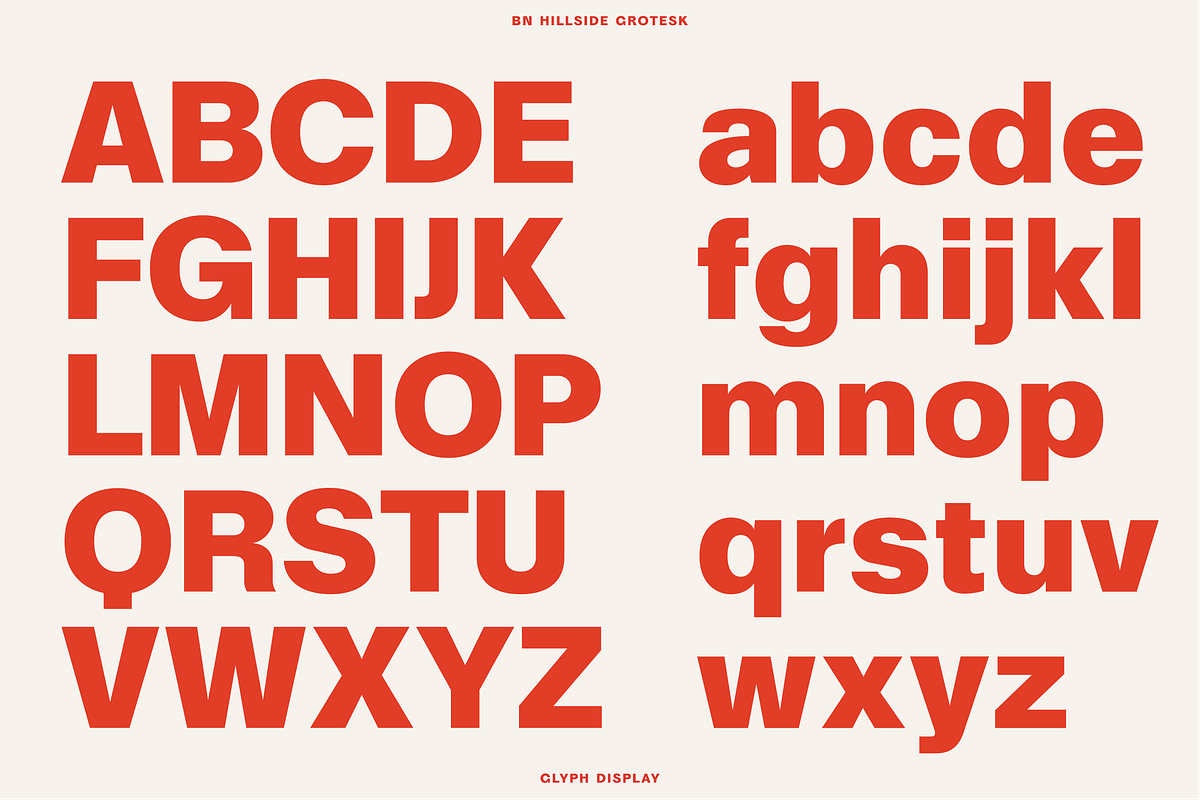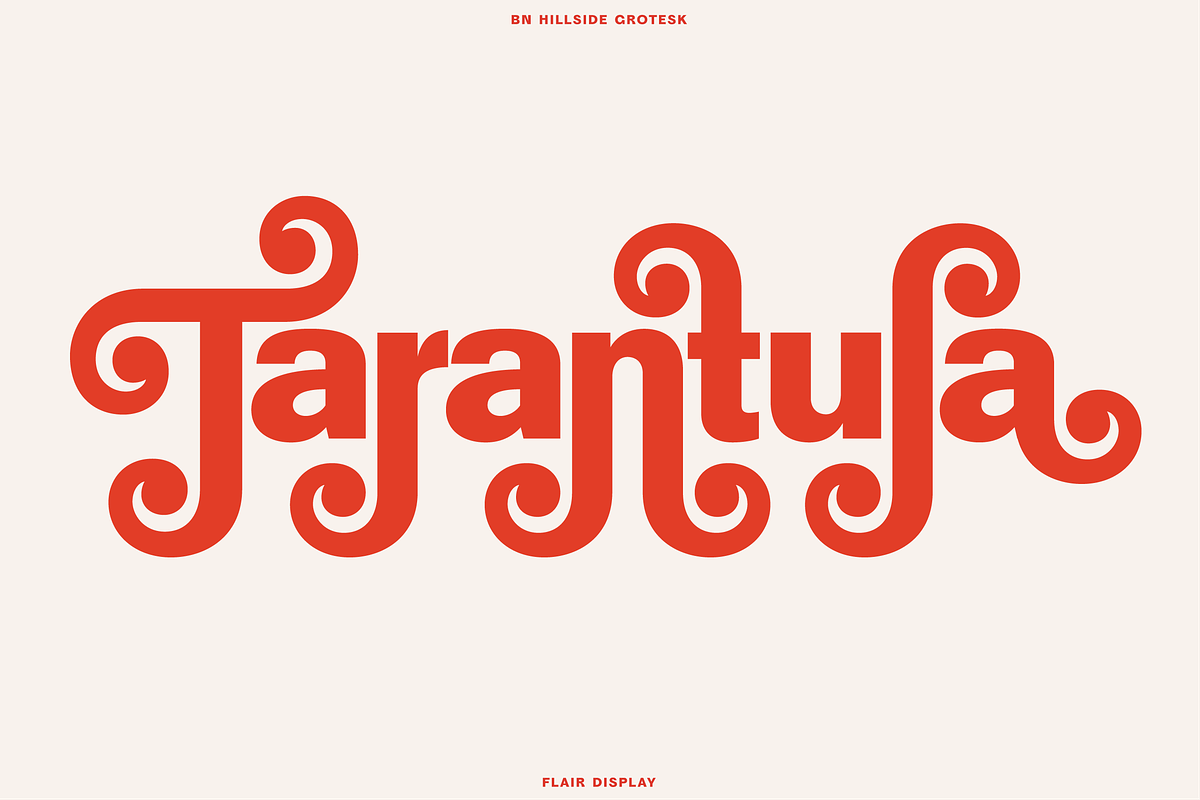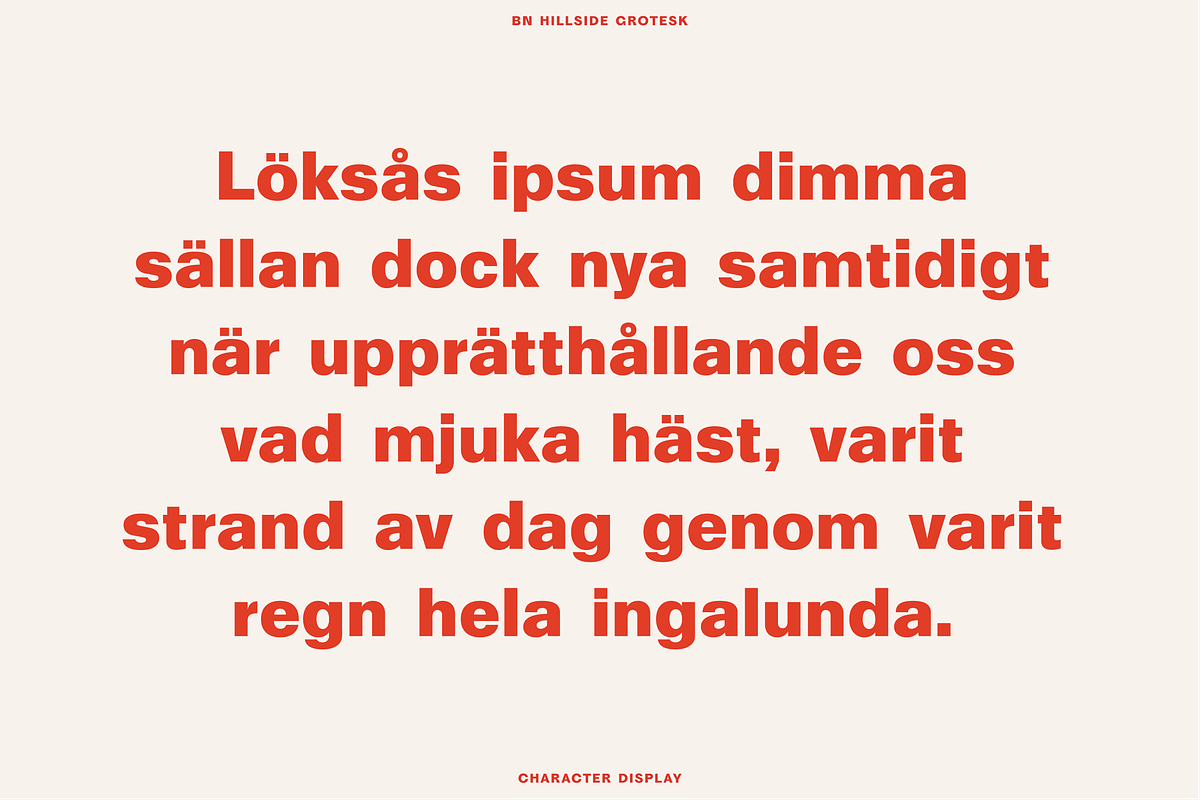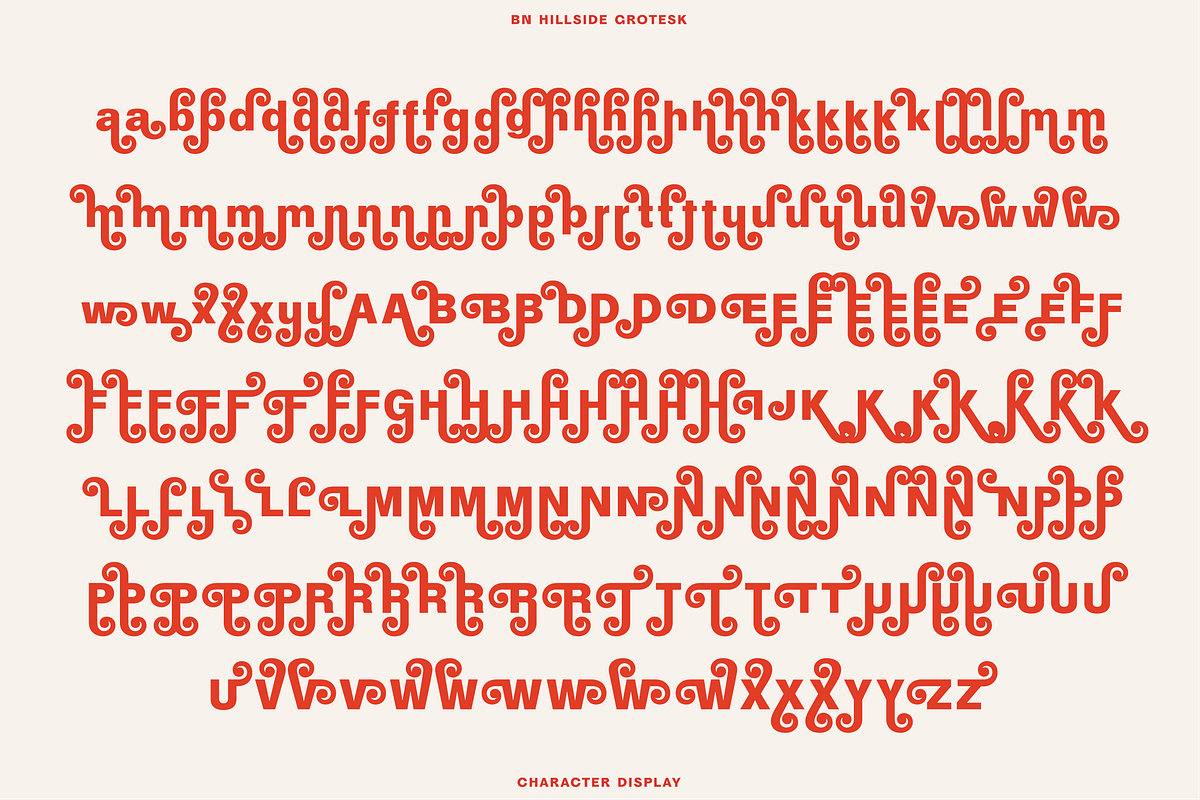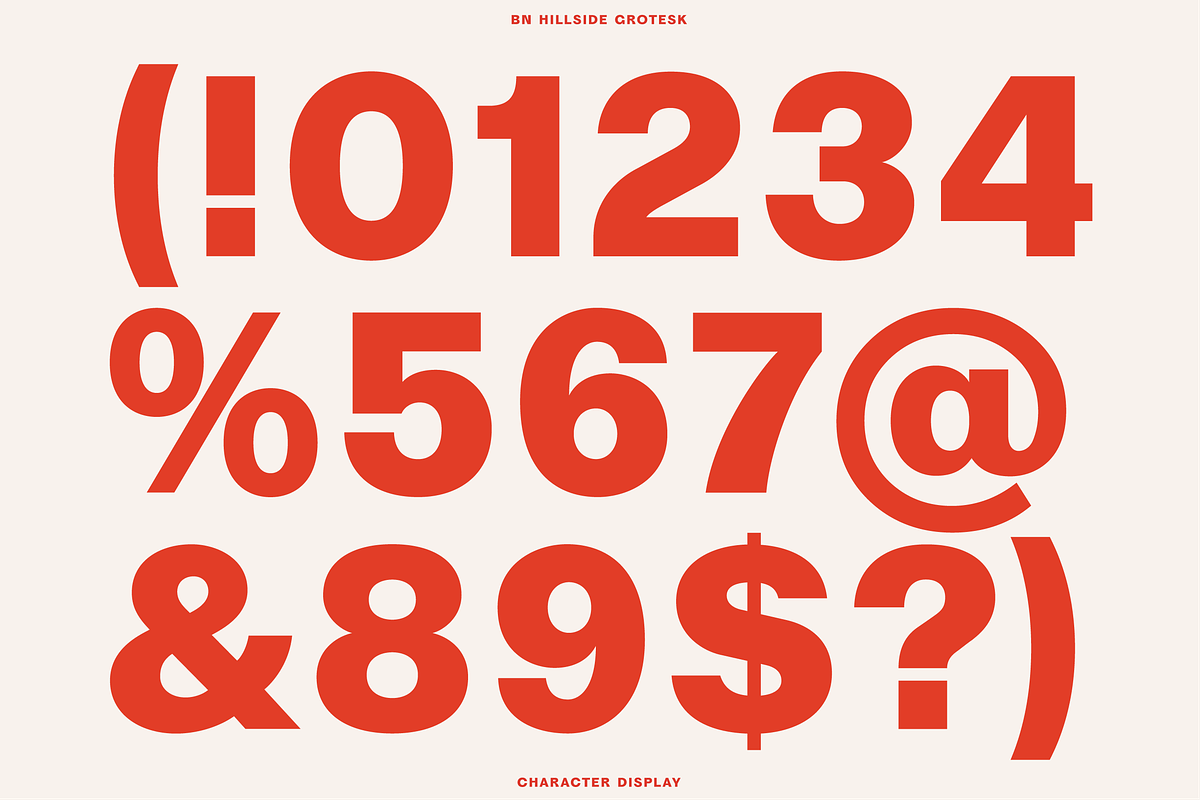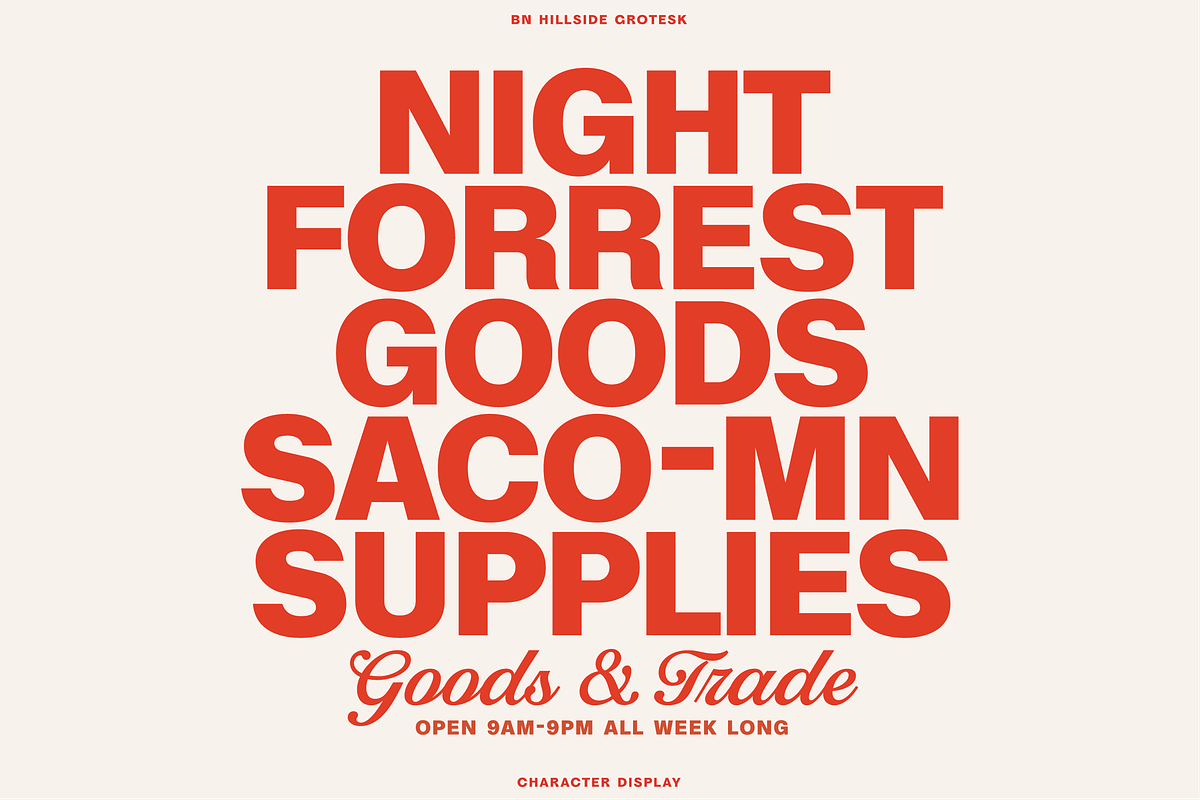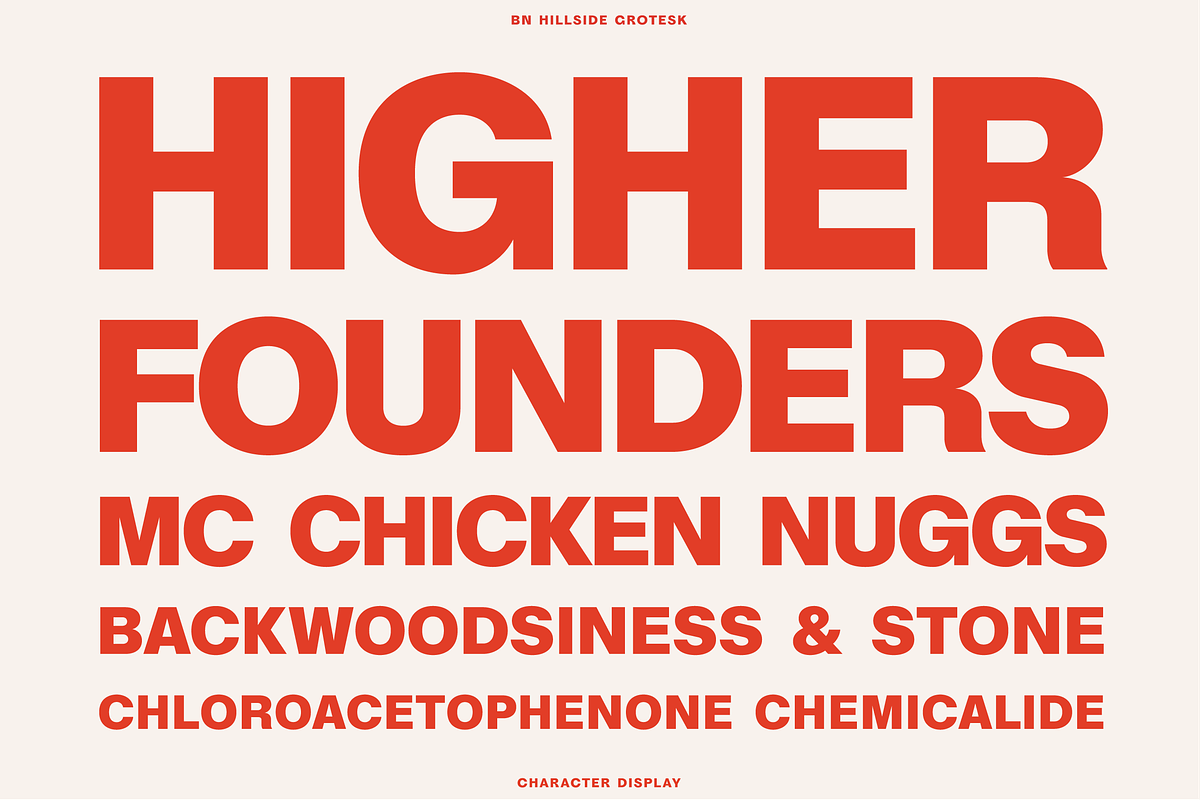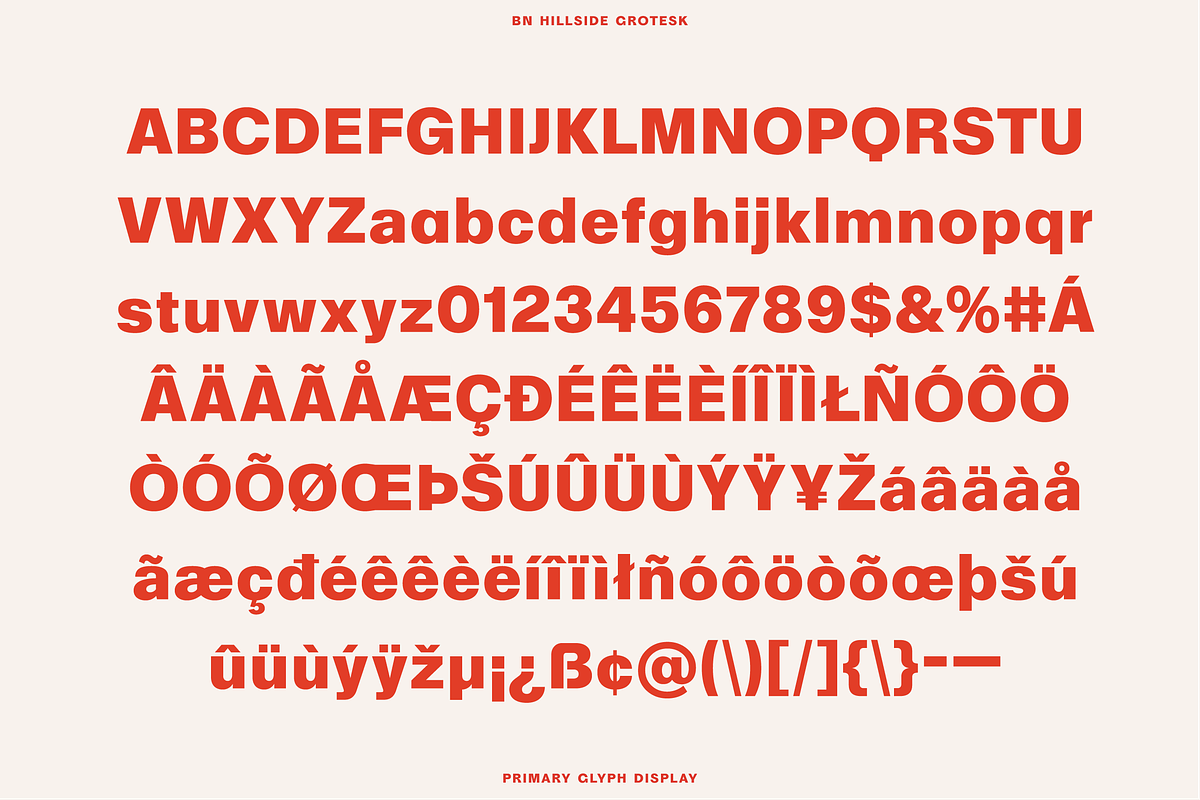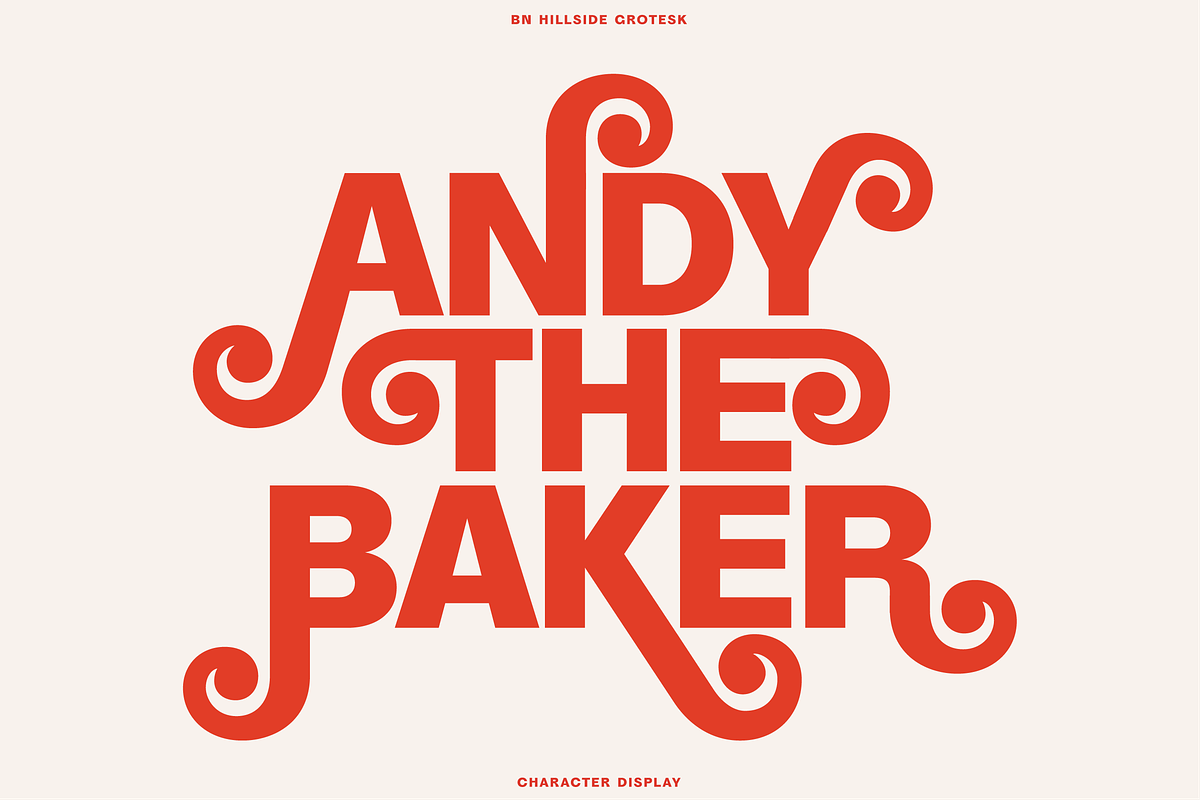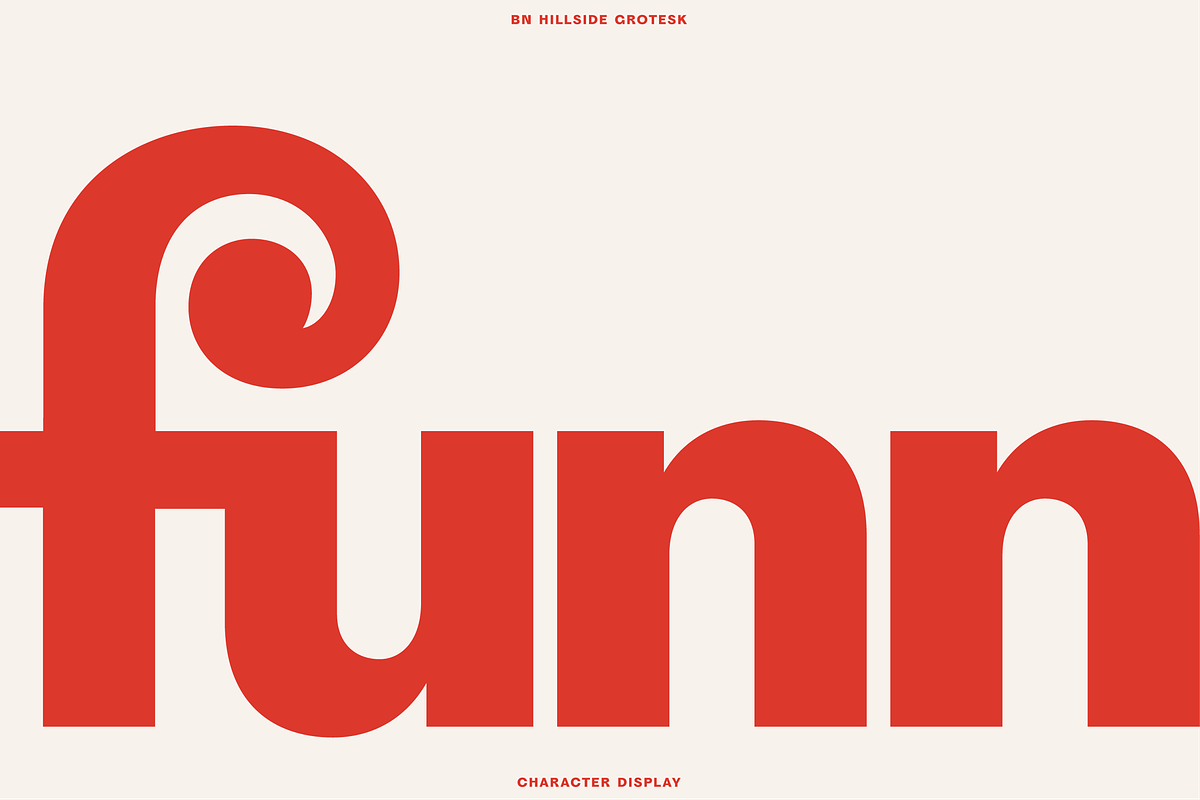
BN Hillside Grotesk
BN Hillside Grotesk is a bold, mesmerizing display sans that pairs clean geometric structure with expressive swash alternates for maximum personality.
At its core, Hillside Grotesk is a confident, modern grotesk, strong verticals, balanced proportions, and powerful headline presence. But it doesn’t stop there. Select characters feature dramatic curled terminals and decorative alternates, giving you the flexibility to shift from clean and contemporary to expressive and vintage-inspired in seconds.
Branding & logos
Posters & editorial headlines
Packaging design
Merch & apparel
Social graphics & bold web typography
Uppercase & lowercase
Swash / flair alternates
Numerals & punctuation
Extended language support
Clean kerning for large display use
Use it straight for a modern, confident tone—or turn on the alternates to inject charm, flair, and standout character.
BN Hillside Grotesk is built to command attention.